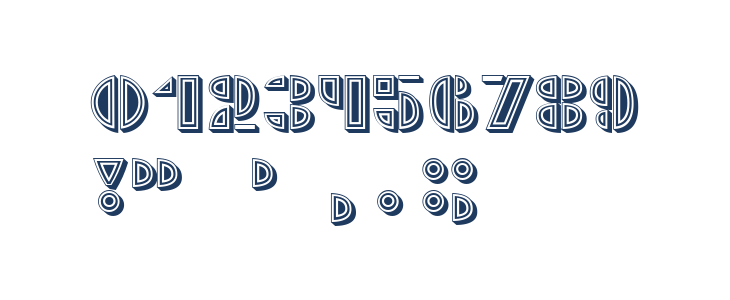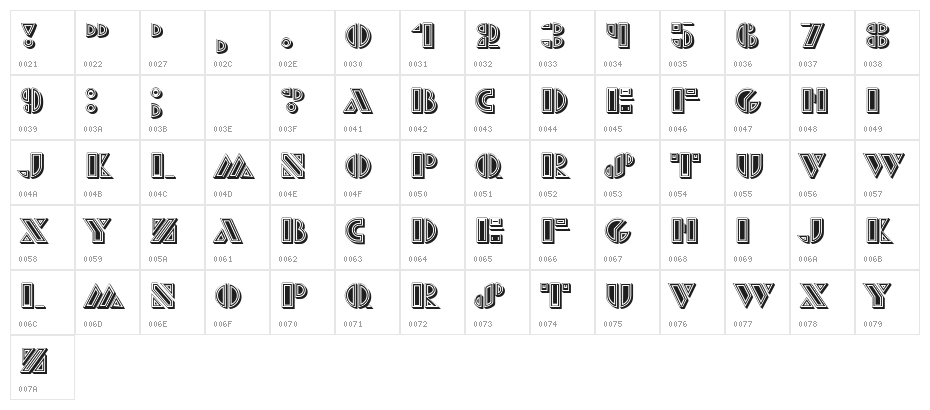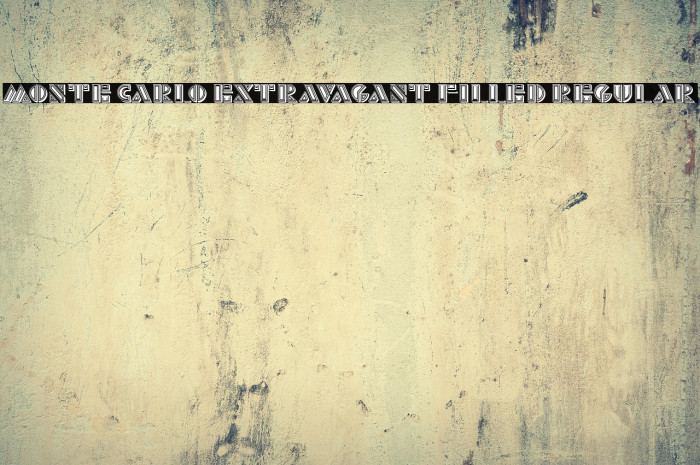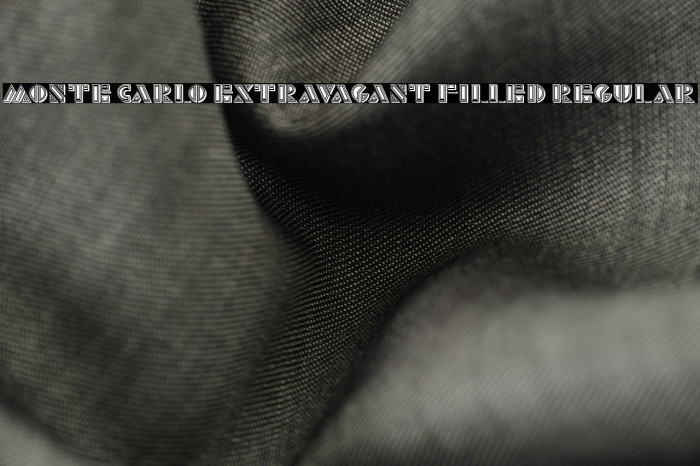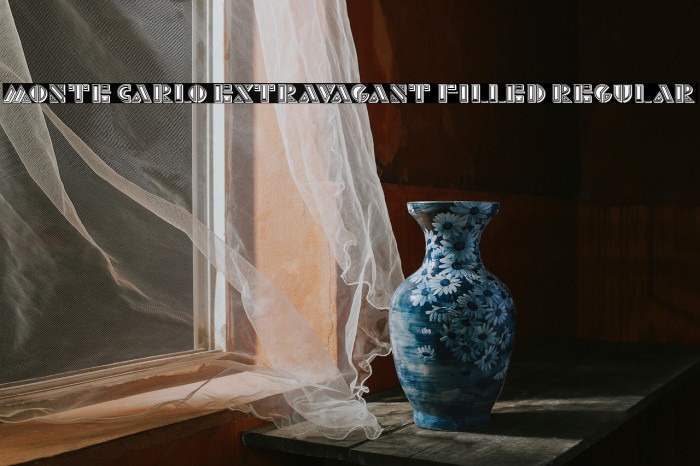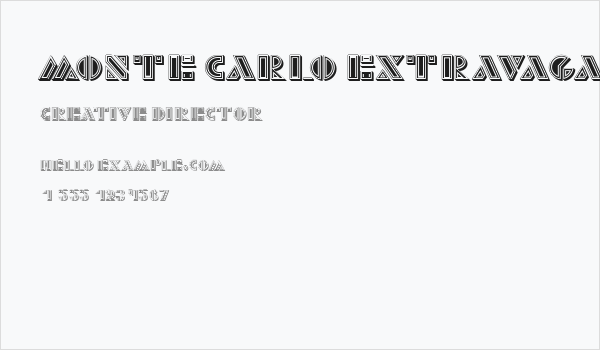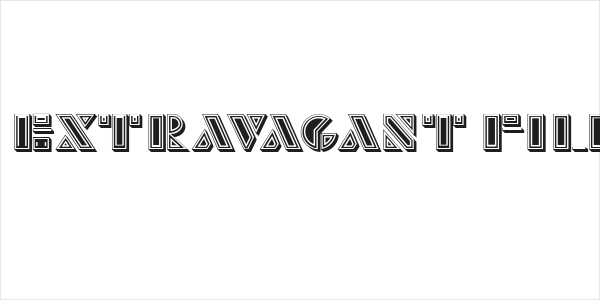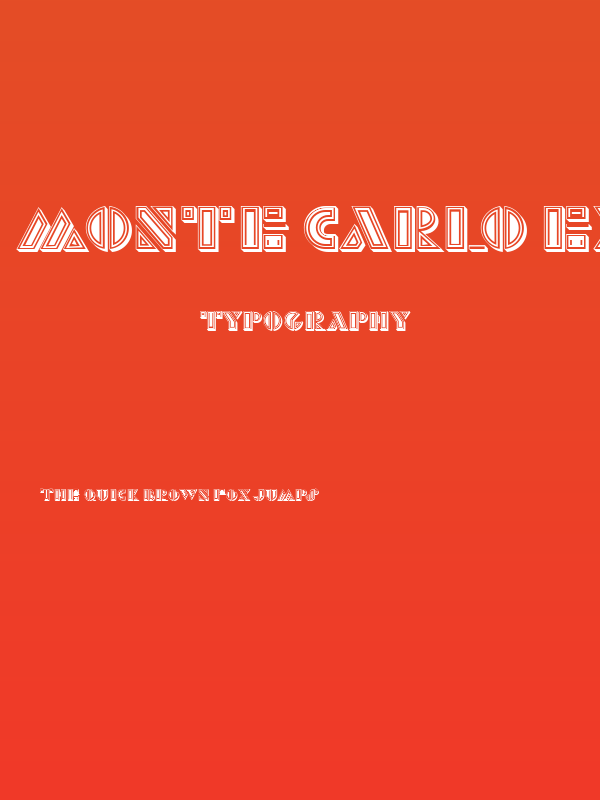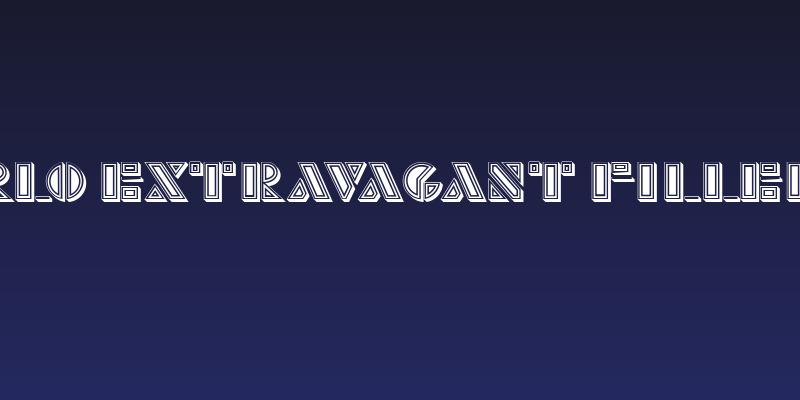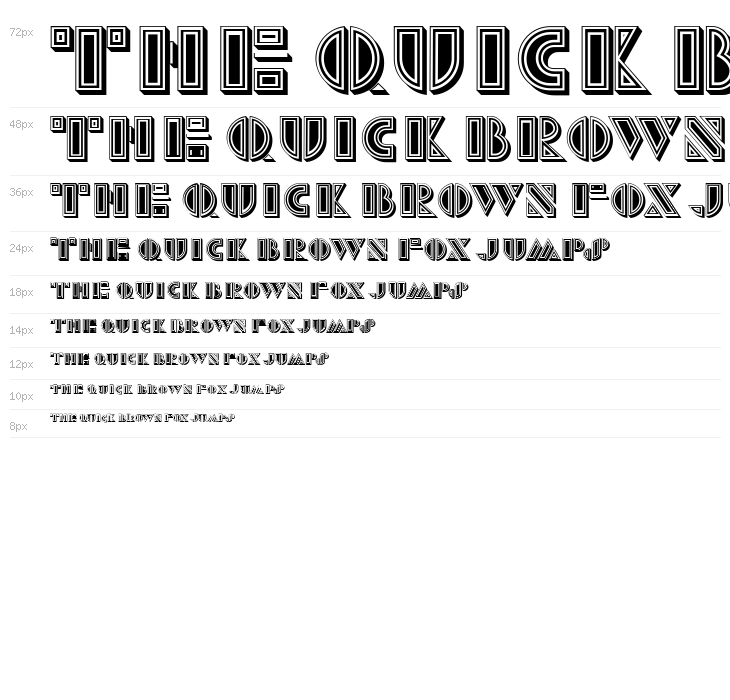
Monte Carlo Extravagant Filled Regular Font
Monte Carlo Extravagant Filled Regular Description
This font features a bold and extravagant design, characterized by its filled and outlined letterforms that create a striking visual impact. The uppercase and lowercase letters share a consistent style, with geometric shapes and intricate patterns that add a sense of luxury and sophistication. The numbers and special characters maintain this elaborate style, ensuring a cohesive look across all elements. The font's unique design makes it ideal for projects that require a touch of elegance and flair.
| Overall Style | Extravagant, Luxurious, Decorative |
| Proposed Projects | Ideal for luxury branding, event invitations, high-end product packaging, and decorative posters. |